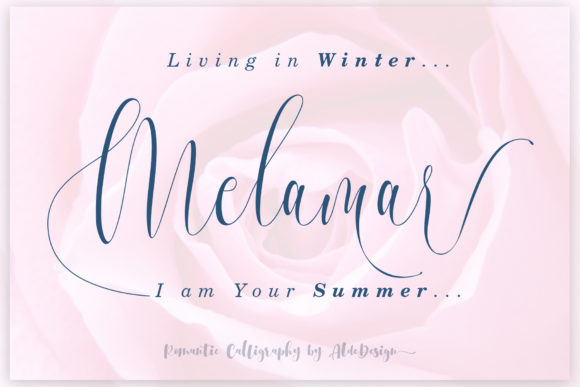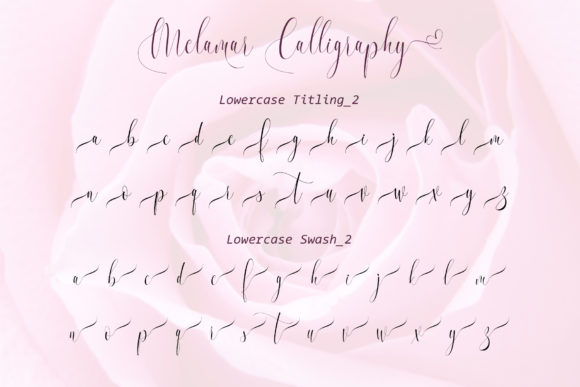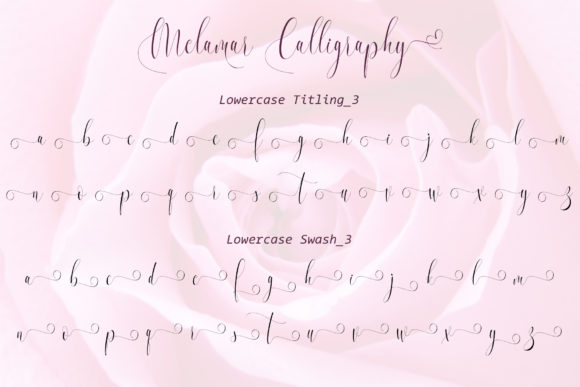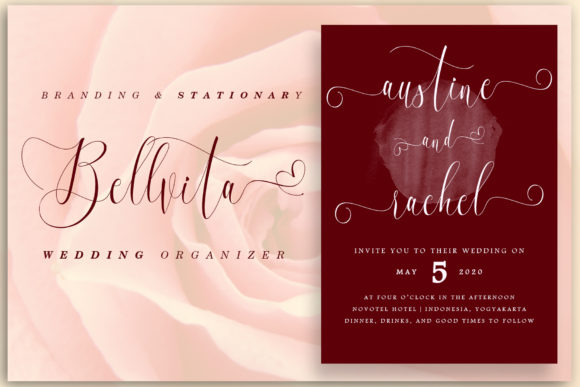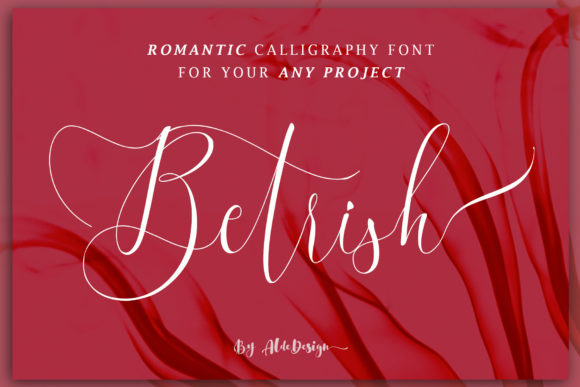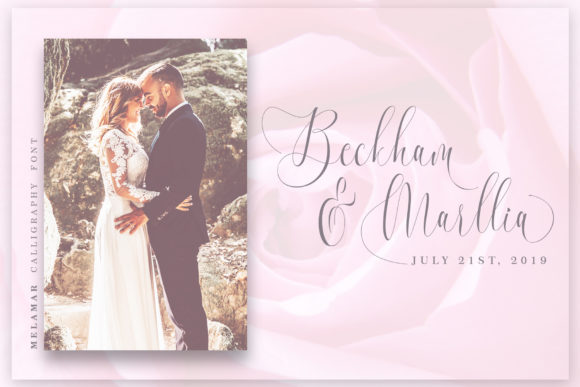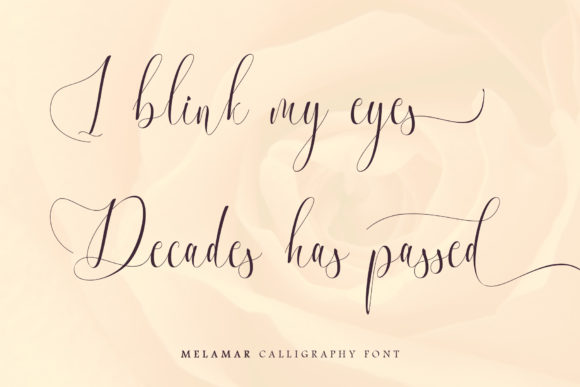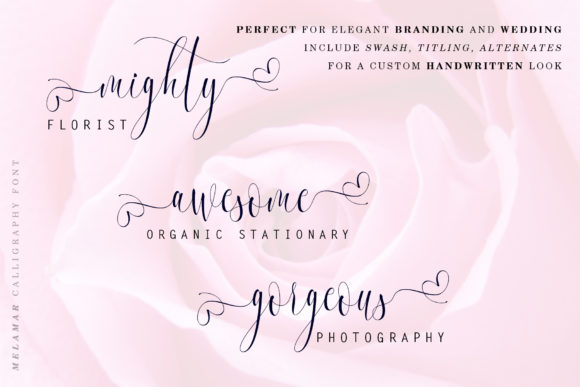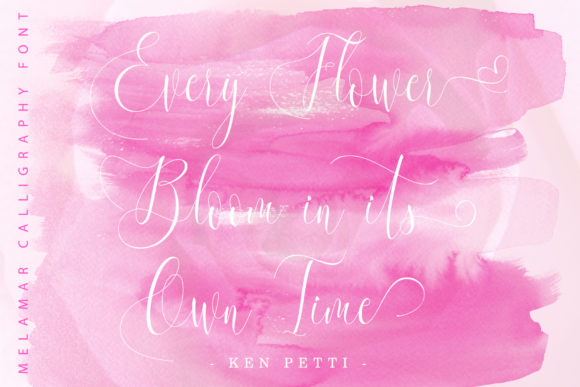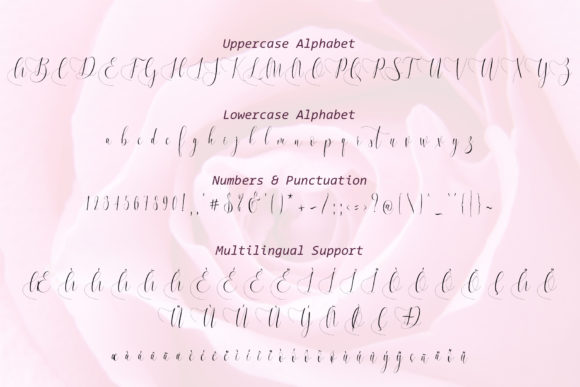
HomeScript FontsMelamar Font Script Fonts Melamar Font FacebookXPinterestWhatsApp Melamar Font Poster 2 Melamar Font Poster 3 Melamar Font Poster 4 Melamar Font Poster 5 Melamar Font Poster 6 Melamar Font Poster 7 Melamar Font Poster 8 Melamar Font Poster 9 Melamar Font Poster 10 Melamar Font Poster 11 About Melamar Font Melamar is a luxurious font with a charming twist. Fall in love with this one-of-a-kind font! DOWNLOAD NOW People also explored Pure Paris Font Hello December Font Maroon Triblend Bella Canvas 8413 Mockup Valentine in Love Font Texture Font Skylar Bring Font Monogram Sarasia Font juliette script Speechless Font 351 0 TagsMelamar Font Previous articleKatty Lynch Duo FontNext articleSlovenia Font LEAVE A REPLY Cancel reply Comment: Please enter your comment! Name:* Please enter your name here Email:* You have entered an incorrect email address! Please enter your email address here Website: Save my name, email, and website in this browser for the next time I comment. Personal Use Free Historise Personal Use Free Read more about this font Mullia Personal Use Free Read more about this font Quickline Personal Use Free Read more about this font Hanifah Personal Use Free Read more about this font BLOG Top 10 Handwritten Fonts That Elevate Your Designs Top 10 Handwritten Fonts That Will Elevate Your Designs Handwritten fonts bring a warm, personal touch to every creative project. Whether you're designing logos, invitations,... Where to Buy American Fonts Online in 2024 5 Fonts That Will Dominate Design Trends in 2026 Top 7 Google Fonts Alternatives for Faster and Privacy-Friendly Web Design (2025)